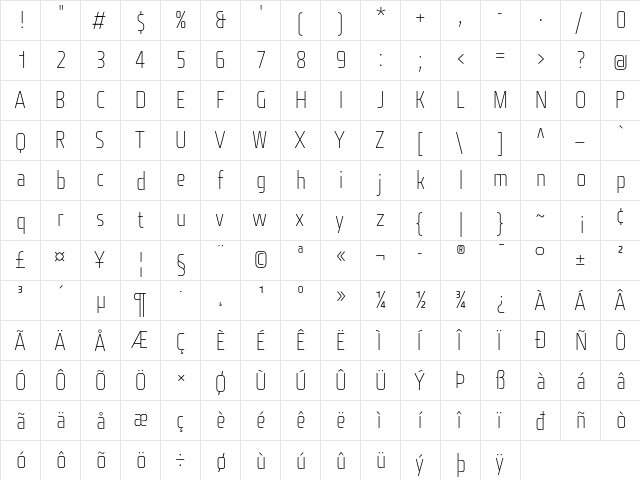
Fishmonger CT Plain
| Foundry | Tomas Brousil |
Design Context for Fishmonger CT Typeface
Fishmonger CT takes a measured approach to typography — its balanced proportions and neutral character make it a reliable workhorse for both digital and print work.